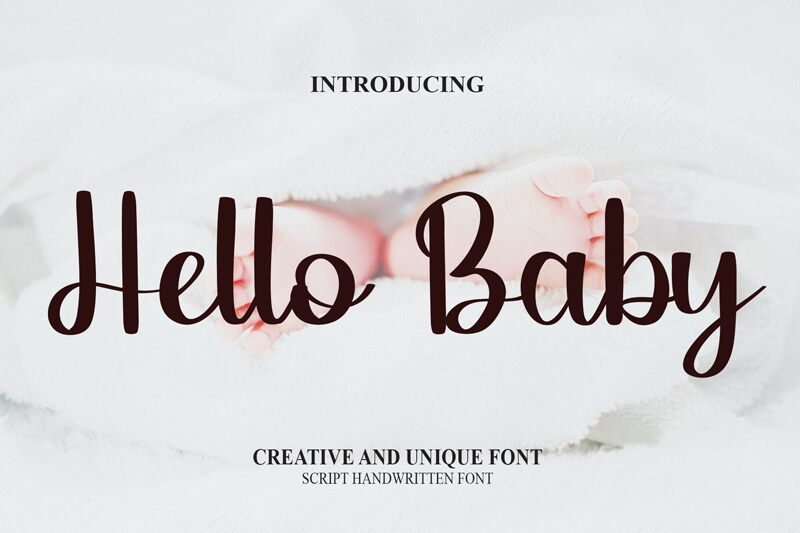
Hello Baby
Hello Baby, a captivating font created by Belina Studio, is a delightful blend of uniqueness and charm. With its semi-light weight, this unique handwritten typeface adds a touch of elegance to any project. Ideal for children's books, baby shower invitations, and nursery wall art, Hello Baby brings a playful yet sophisticated vibe. Its whimsical strokes and individuality make it perfect for greeting cards, branding designs, and social media graphics that aim to convey warmth and friendliness. Let Hello Baby add a dash of personality to your next creative endeavor.